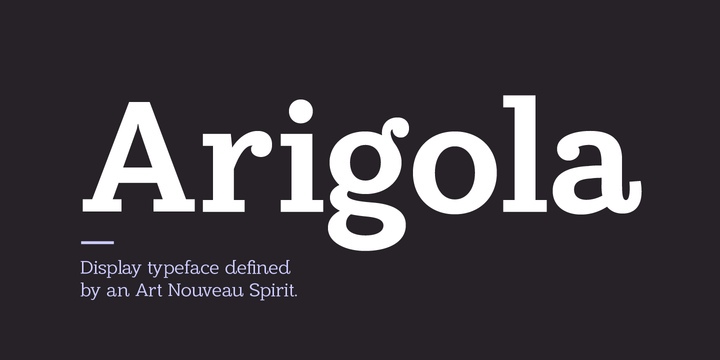
Arigola Font
Arigola Font is perfect for modern branding projects, tech startups, minimalist logos, website headers, mobile app interfaces, corporate presentations, business cards, and contemporary advertising campaigns where clean sophistication is essential.
What makes Arigola Font so exciting is its perfect balance between geometric precision and subtle humanistic touches that create visual harmony in any design context. The carefully crafted letterforms offer exceptional legibility while maintaining a distinctive personality that sets brands apart from competitors.
The Arigola Font family includes regular, light, medium, bold, and black weights, along with matching italic versions, providing designers with comprehensive typographic flexibility for complex design systems and brand hierarchies.
This contemporary typeface represents the evolution of modern typography, combining cutting-edge design principles with timeless readability standards. The Arigola Font Free Download gives designers access to a professional-grade font that excels in both digital and print environments.
Each character has been meticulously designed to ensure optimal spacing and visual consistency across all applications. The font's versatile nature makes it ideal for everything from delicate body text to bold display headlines, maintaining its elegant character regardless of size or context.
Arigola Font features extended language support and advanced OpenType features, making it suitable for international projects and complex typographic layouts. The font's clean architecture and modern aesthetic appeal to contemporary audiences while remaining timelessly elegant.